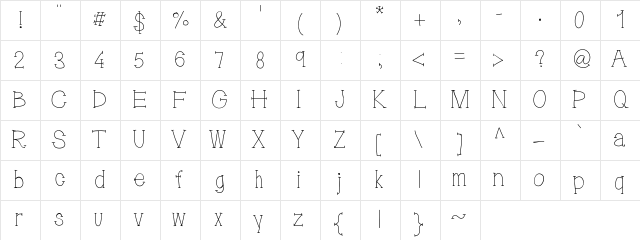
5PM Medium Free Font
5PM Medium
Design Context for 5PM
5PM is a composed and adaptable typeface that performs quietly and consistently across a wide range of design contexts.